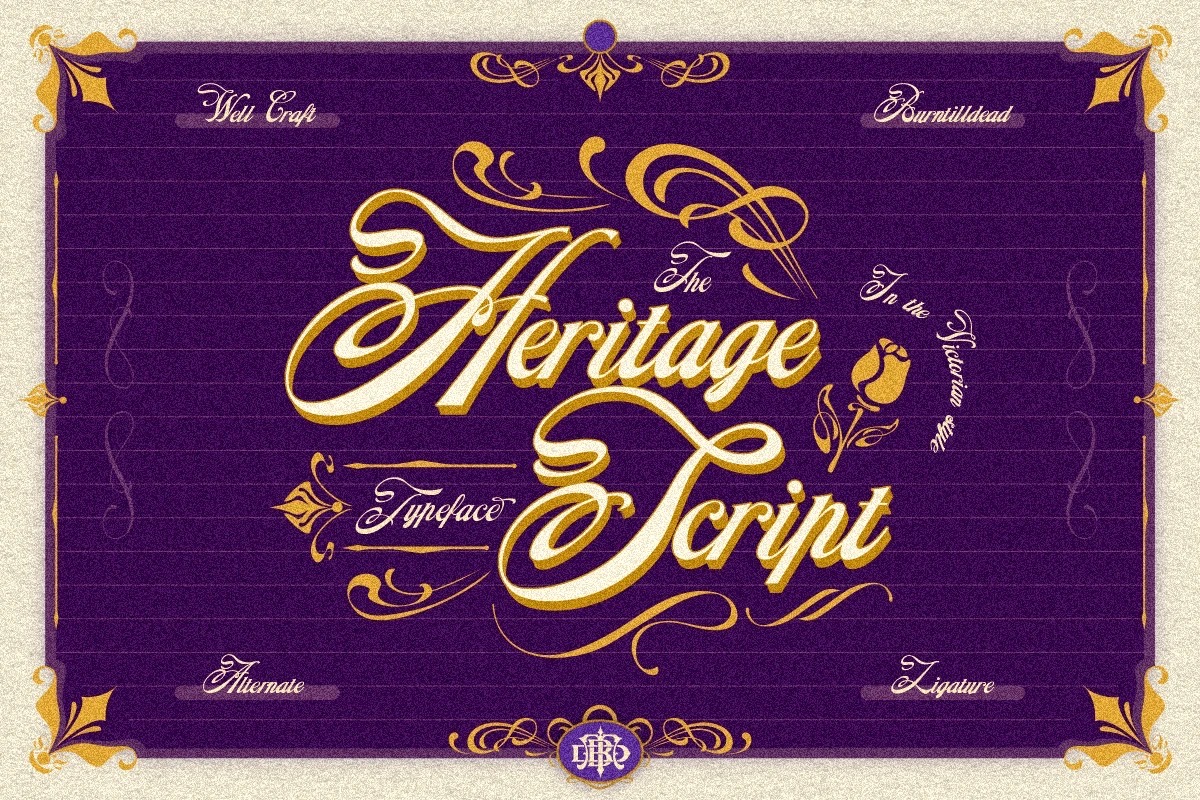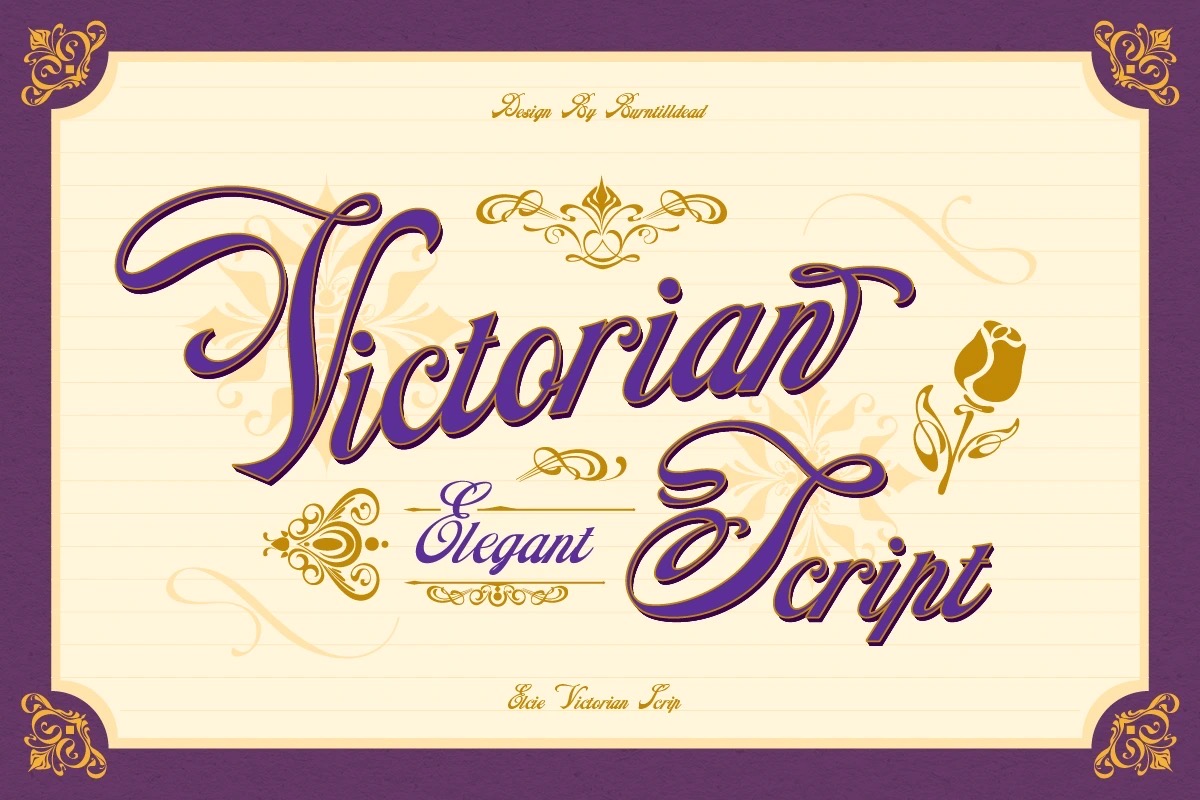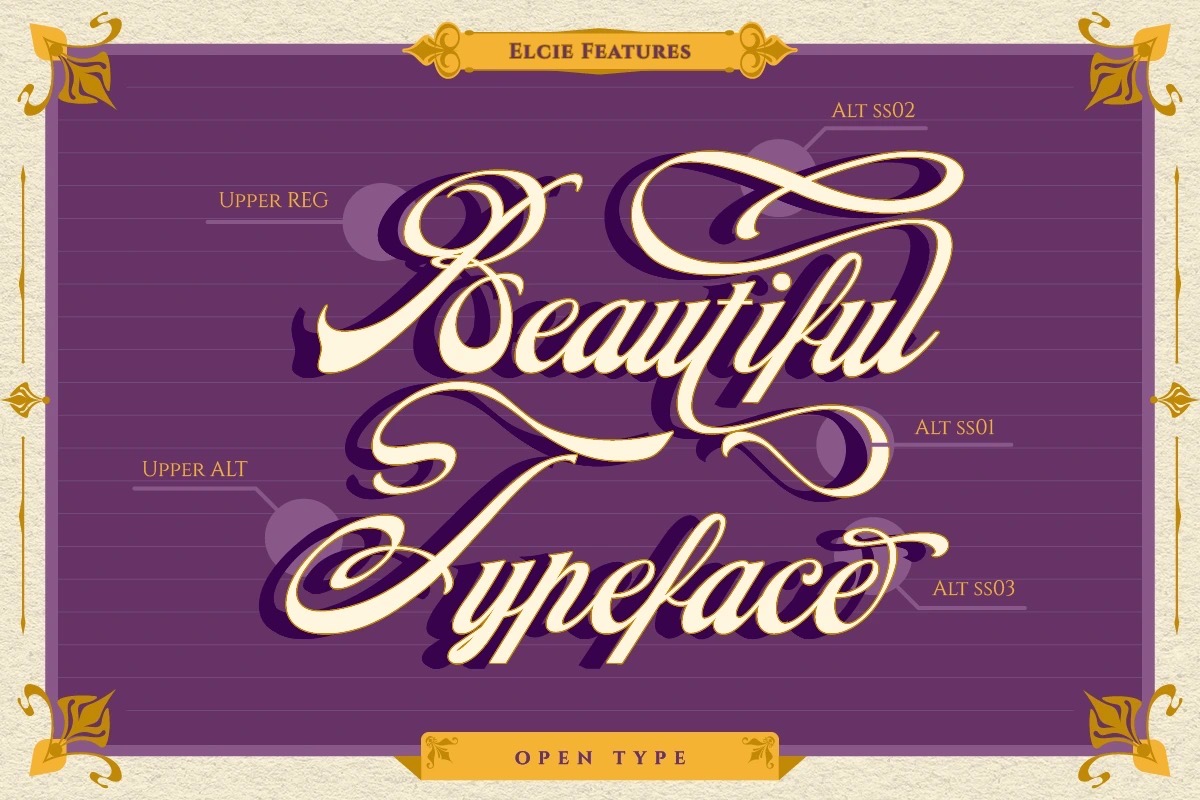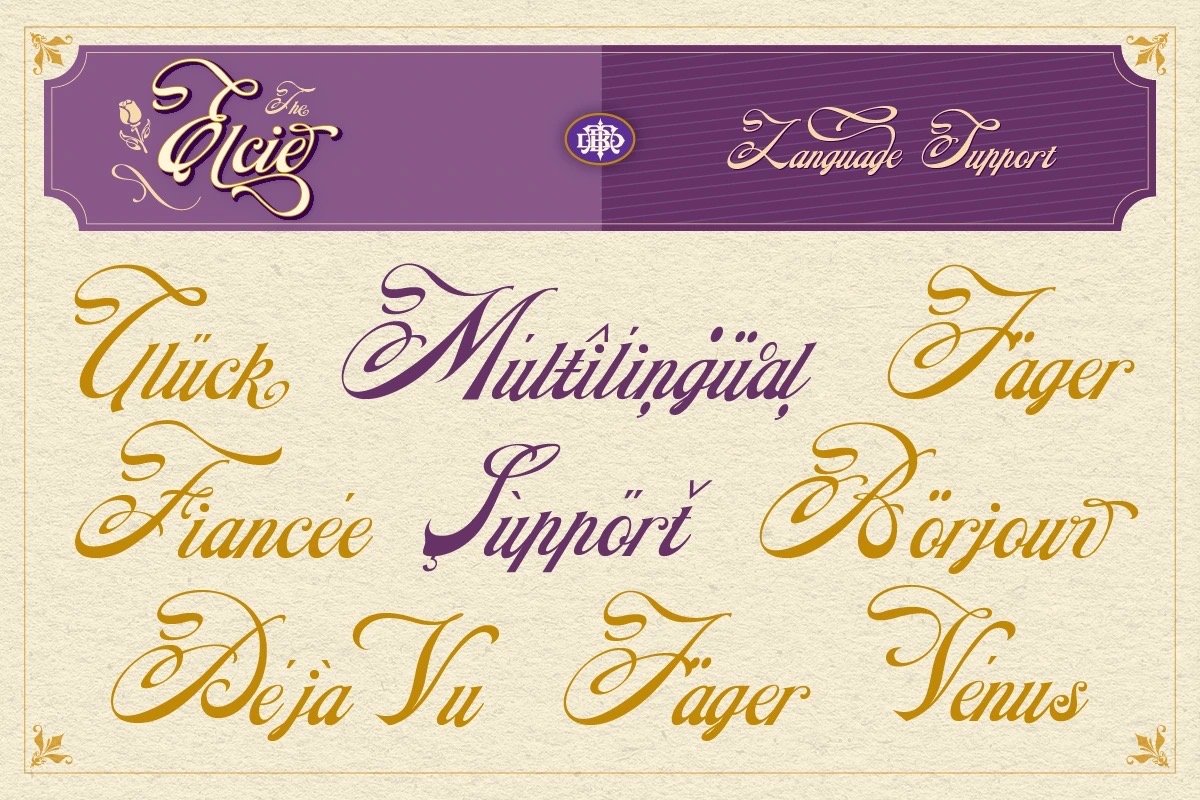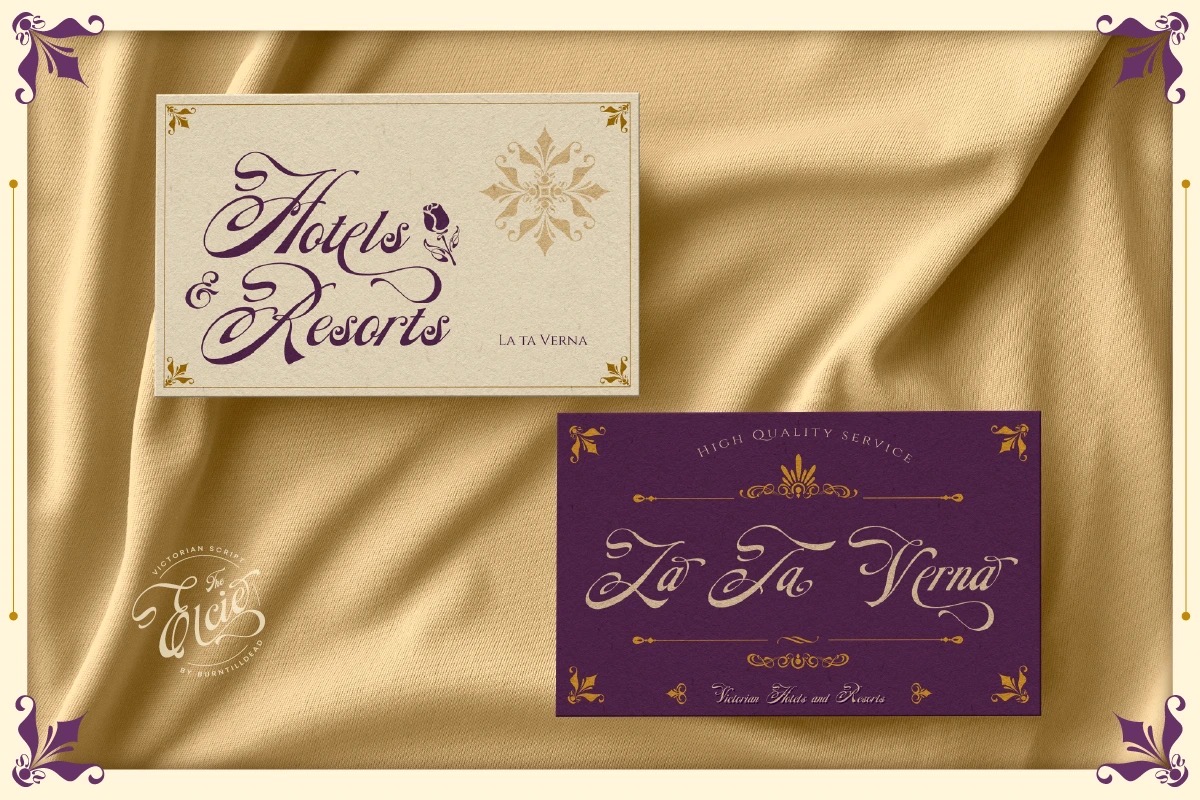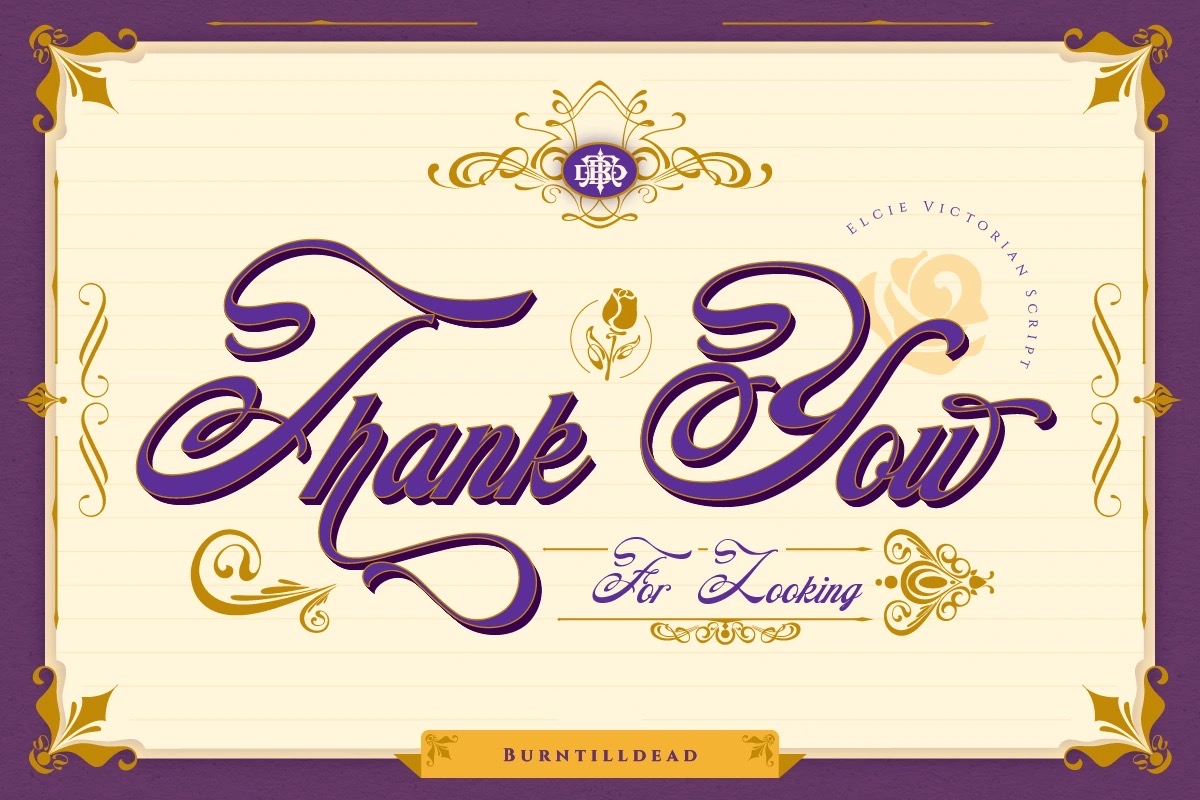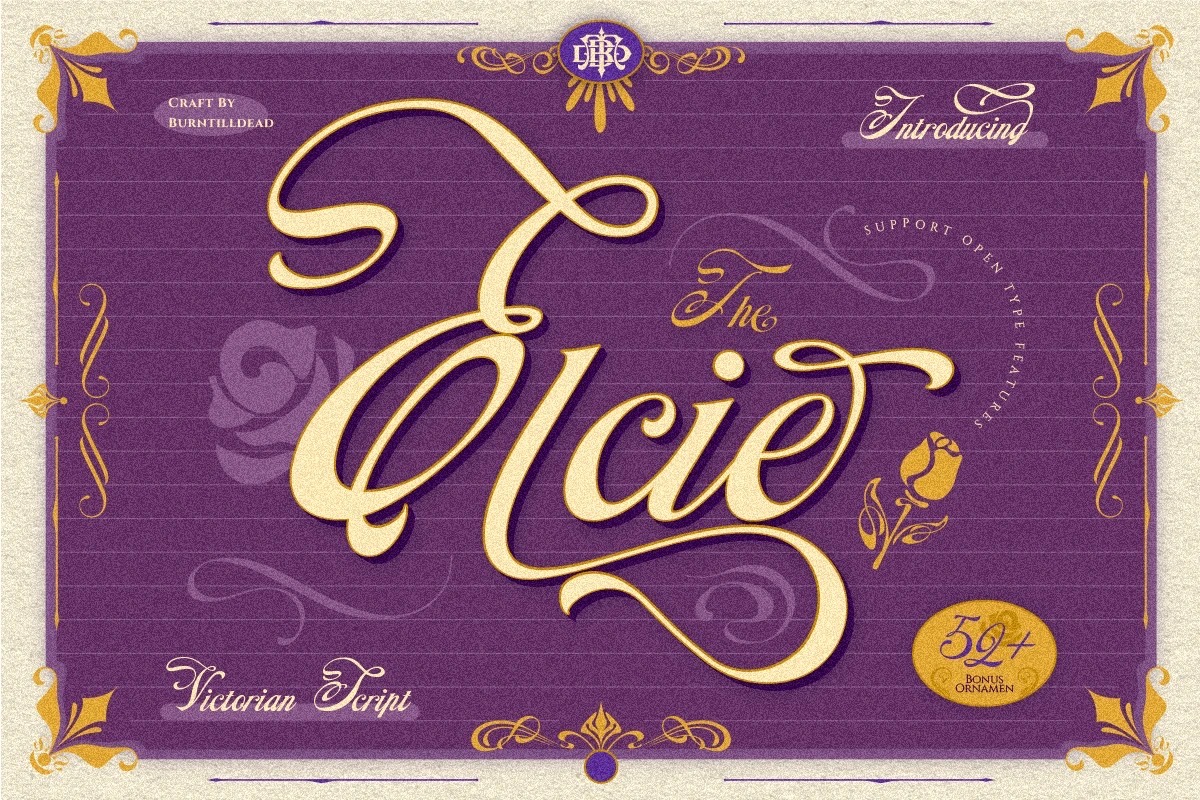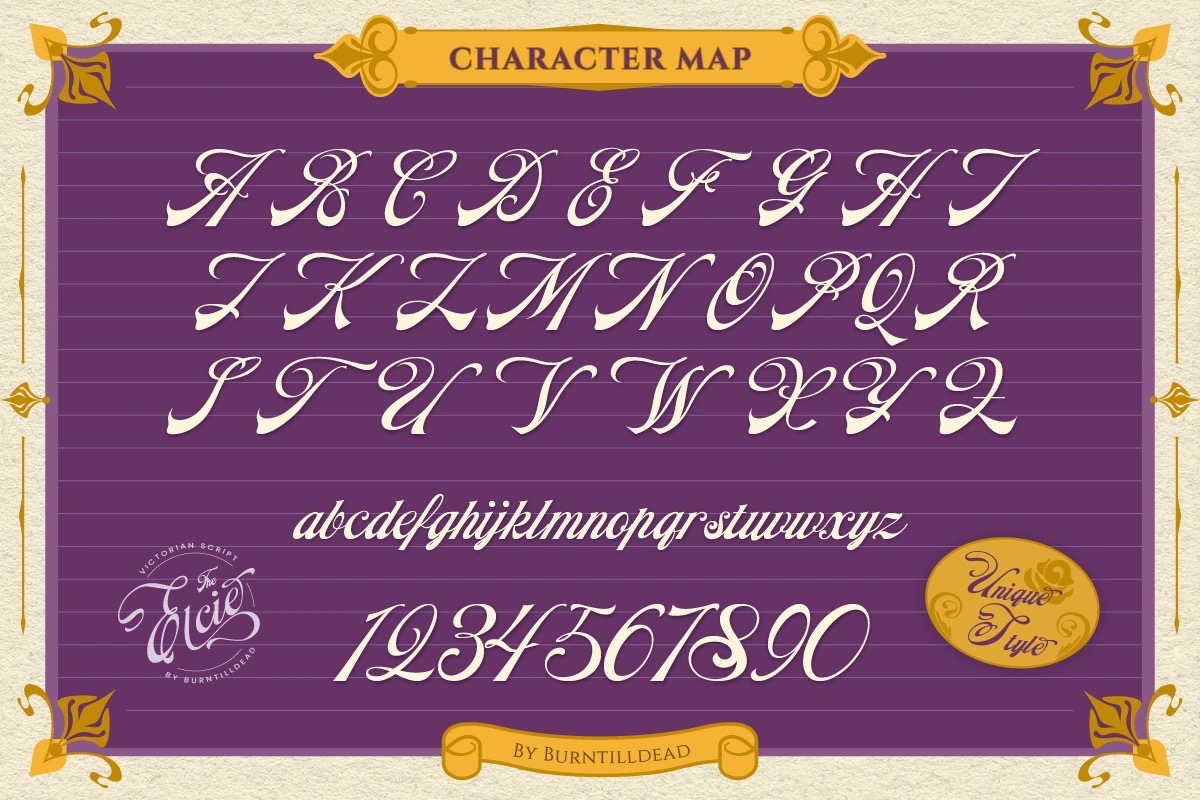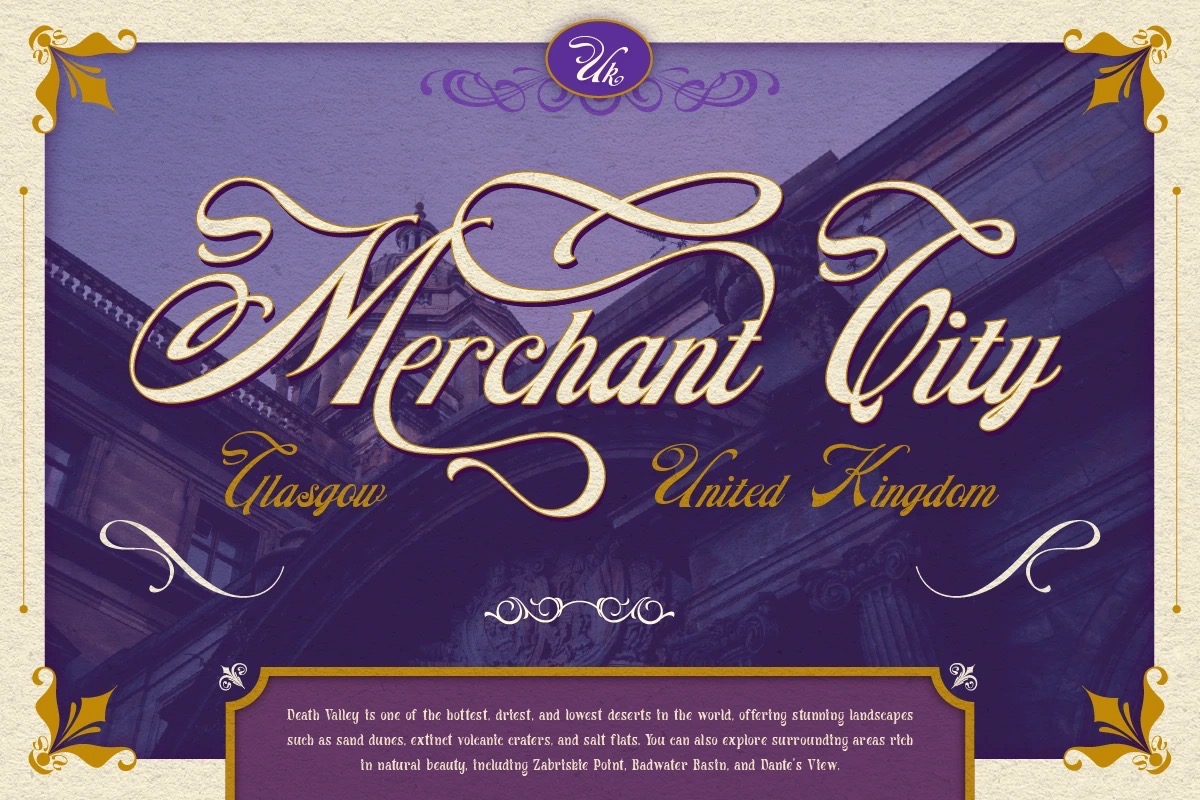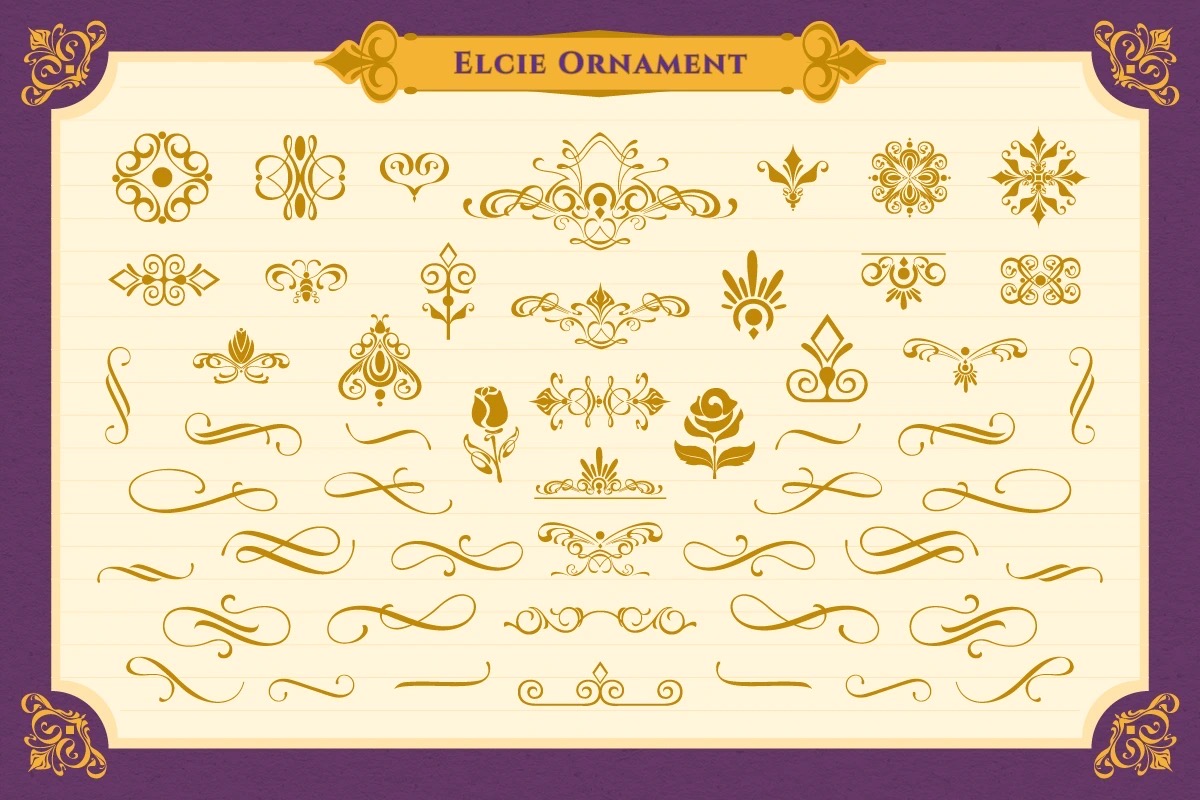
Elcie
Regular
Ornaments
How to create design look victorian style? Easy! The answer is Elcie. This font make your design look victorian, classical and elegant impression with additional free ornaments. Perfectly suitable for victorian theme concept design such as logotype, label design, cover book, business card, invitation card and many more.
• A – Z set (Uppercase & Lowercase)
• Number
• Punctuation
• Alternates
• Ligatures
• Multilingual
• Elcie Characters Map